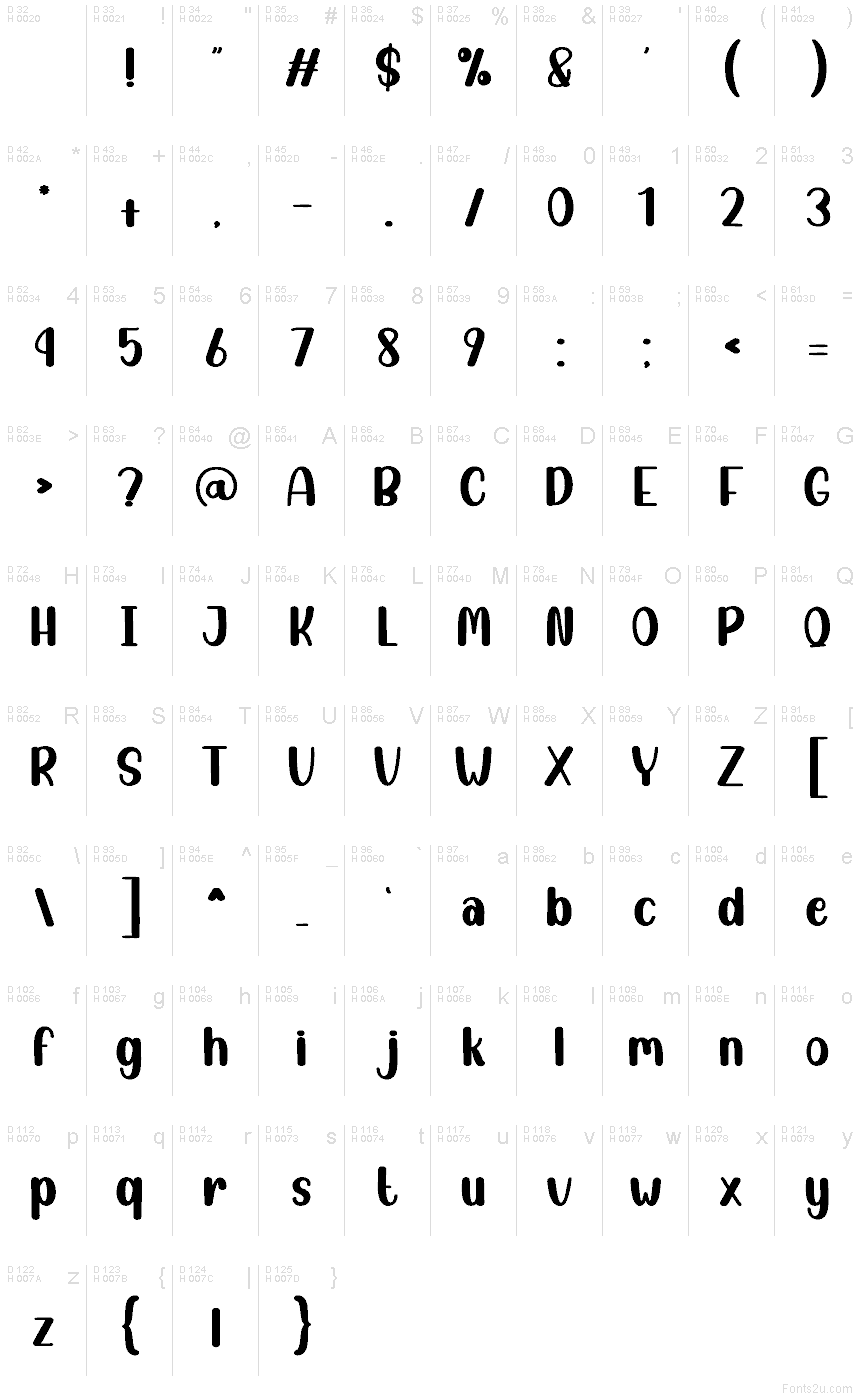
Santa Monday
Santa Monday font by Scratchones is a free brush font. It solves the classic “cute but readable” challenge: lively, hand-painted strokes with soft, rounded edges that still hold their shape at small sizes. The rhythm is steady, the curves feel pillowy and ink-rich, and the spacing leaves room to breathe—so your message stays charming without turning messy.
Using Santa Monday, headlines and tags pop on greeting cards, kids’ posters, bakery packaging, cafe boards, seasonal banners, and social graphics. This free font shines when set large, then paired with a crisp, light sans-serif for body copy to keep the sweetness in check and the message crystal clear.